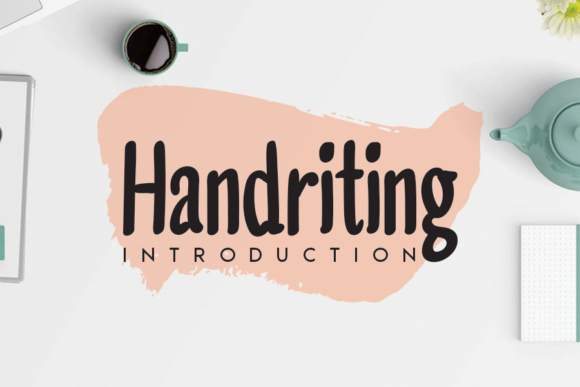
About Writer Font
Writer is a tall and friendly handwritten font, described by an elegant touch, perfect for your favorite projects. Fall in love with its incredibly distinct and timeless style and use it to create spectacular designs!